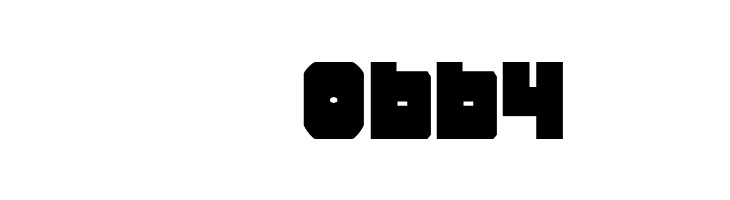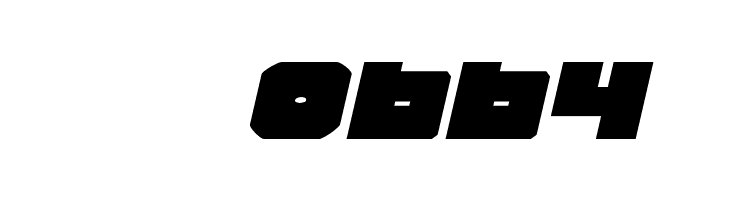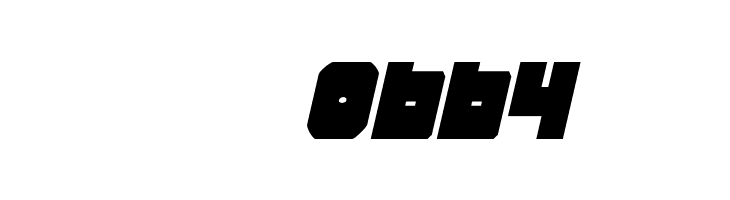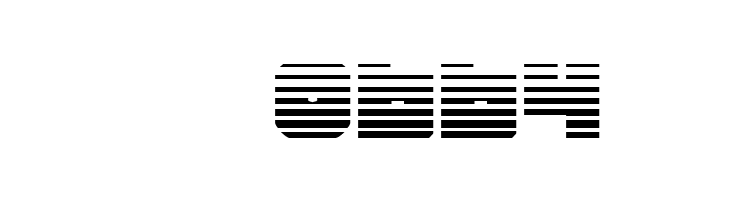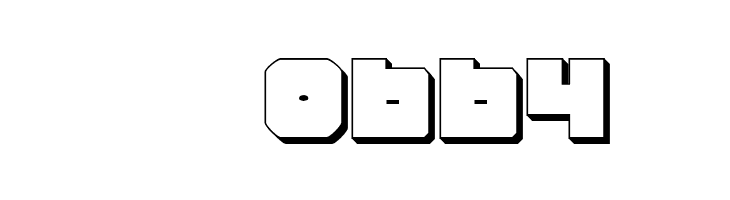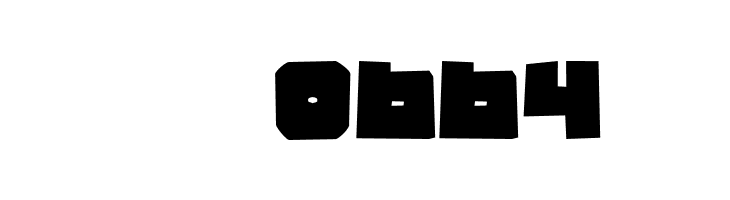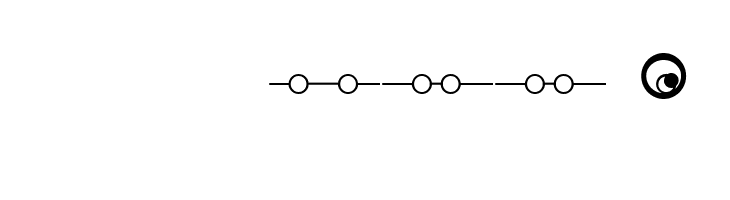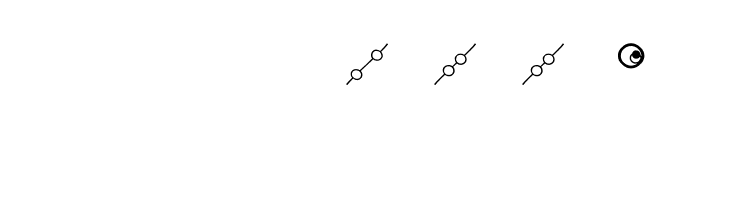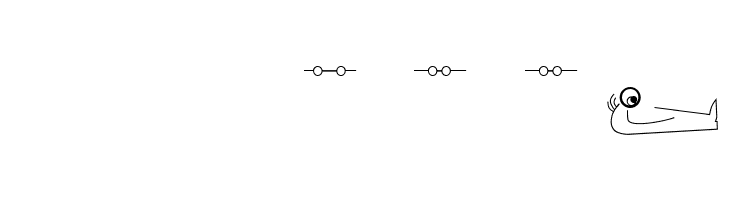
• LLRounded
A bold, rounded font with a distressed, handcrafted look.
• LLRubberGrotesque
A bold, distressed font with a rugged, vintage appearance.
• LLRubberGrotesqueOTF
A bold, distressed font with a vintage, textured appearance.
• LLRubberGrotesqueOTF
A bold, distressed font with a vintage, industrial feel.
• Lobo Tommy
A bold, geometric font with a modern and futuristic style.
• Lobo Tommy 3D
A bold, 3D block-style font with a strong geometric design.
• Lobo Tommy 3D Italic
A bold, 3D italic font with a geometric and dynamic style.
• Lobo Tommy Condensed
A bold, geometric, and condensed font with a modern, edgy style.
• Lobo Tommy CondItalic
A bold, condensed, and italicized geometric font with a modern and edgy style.
• Lobo Tommy Expanded
A bold, geometric font with an expanded width and strong, blocky shapes.
• Lobo Tommy ExpItalic
A bold, italicized font with a modern, futuristic style and tight character spacing.
• Lobo Tommy Gradient
A bold, striped font with a modern, gradient effect.
• Lobo Tommy Gradient Italic
A bold, italicized font with a gradient effect created by horizontal lines, offering a futuristic and dynamic style.
• Lobo Tommy Italic
A bold, angular font with a futuristic and dynamic style.
• Lobo Tommy Pro
A bold, geometric font with a futuristic and industrial aesthetic.
• Lobo Tommy Pro Italic
A bold, geometric italic font with a strong, modern presence.
• Lobo Tommy Rotalic
A bold, slanted, and dynamic font with a modern, energetic style.
• Lobo Tommy Rough
A bold, geometric font with a rough, textured appearance.
• Lobsters Blush Bold free
A playful, whimsical script font with elegant loops and a handwritten feel.
• Locals Only
A decorative font with sharp, angular lines and a modern, edgy style.
• Locals Only Balls